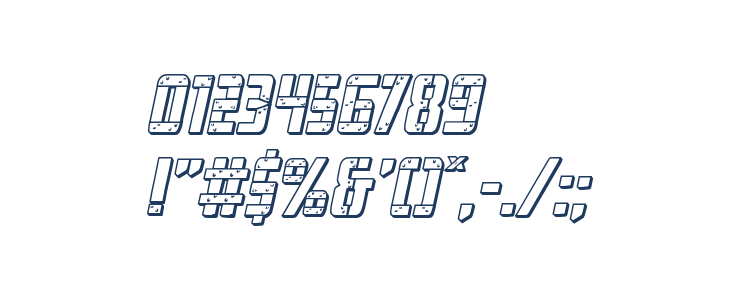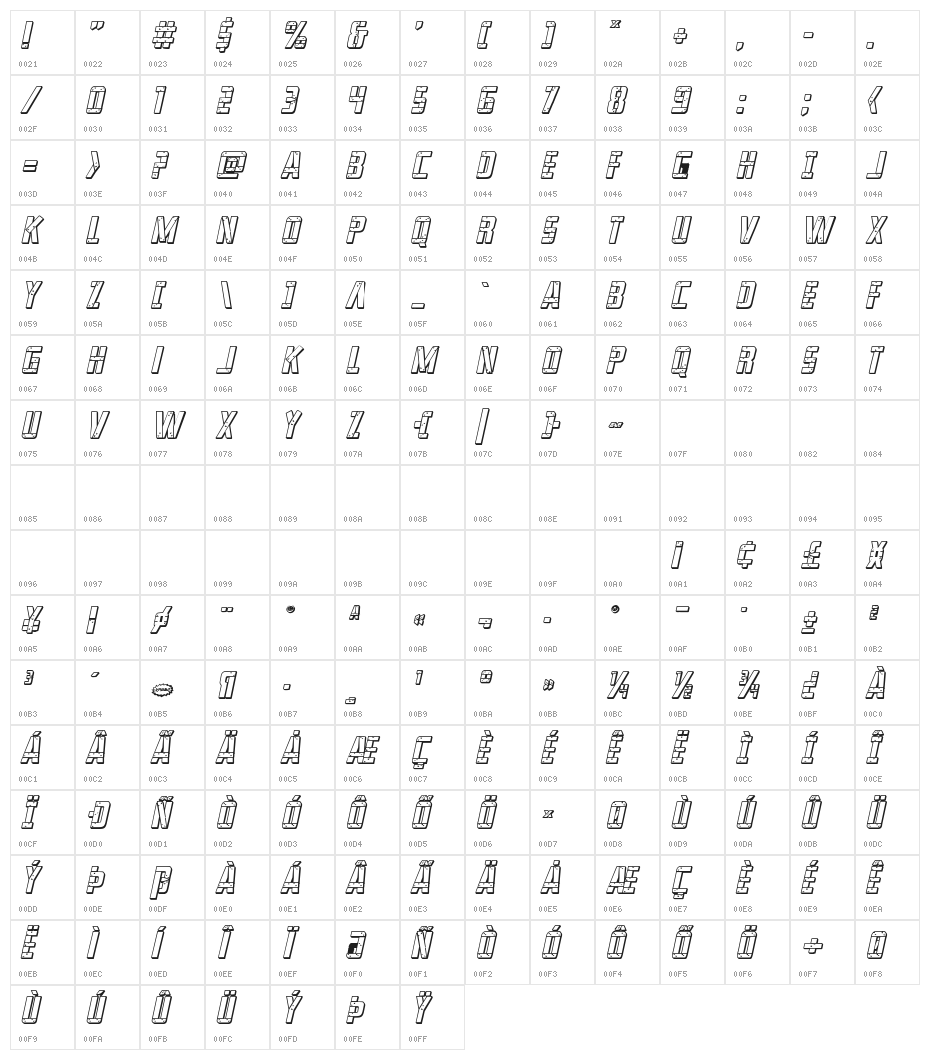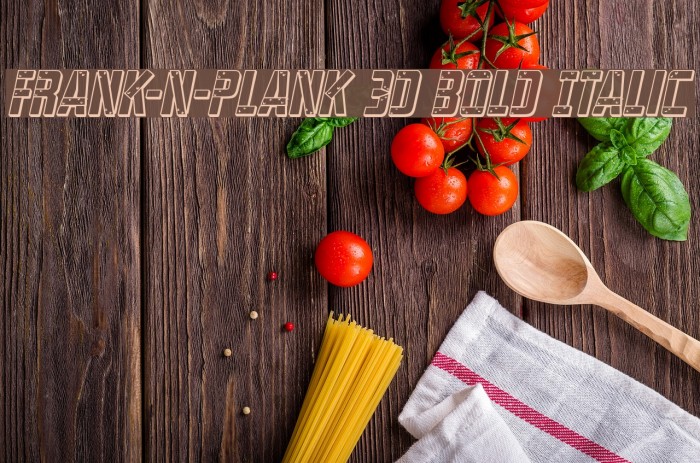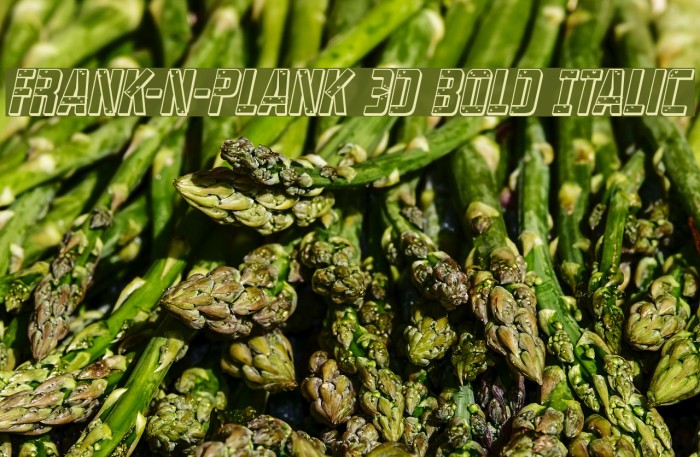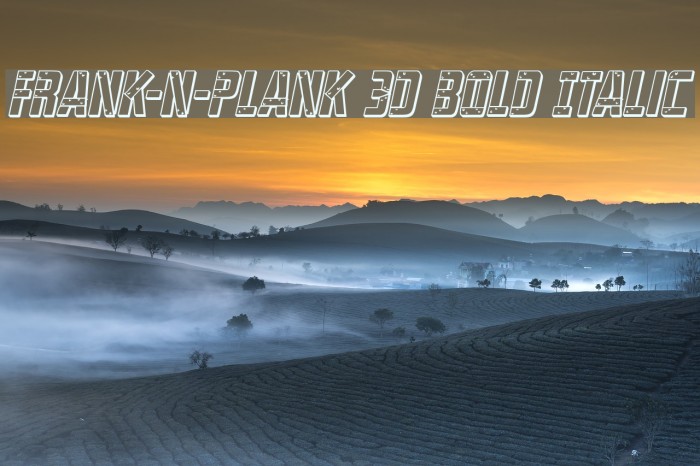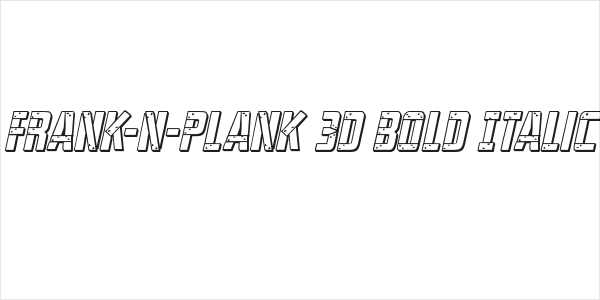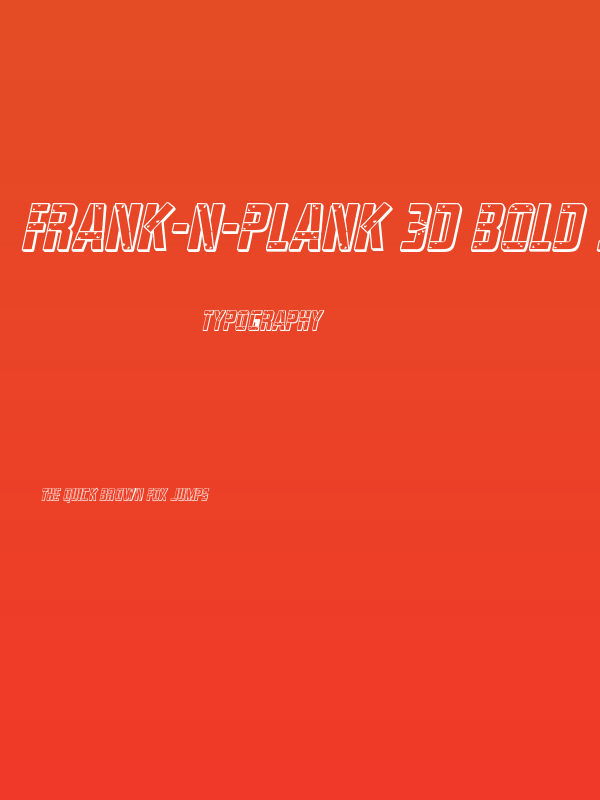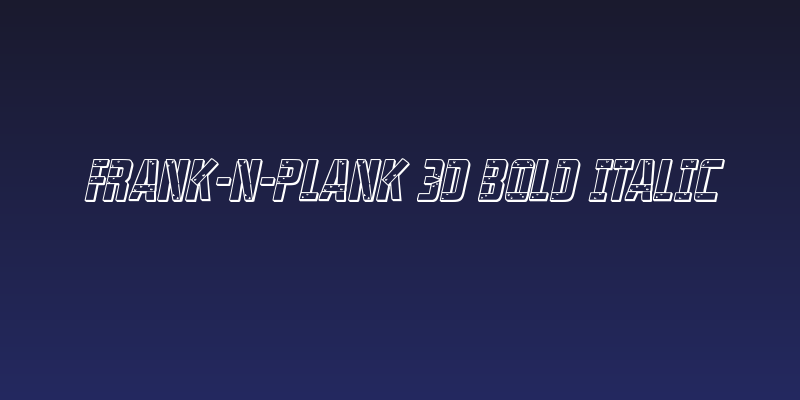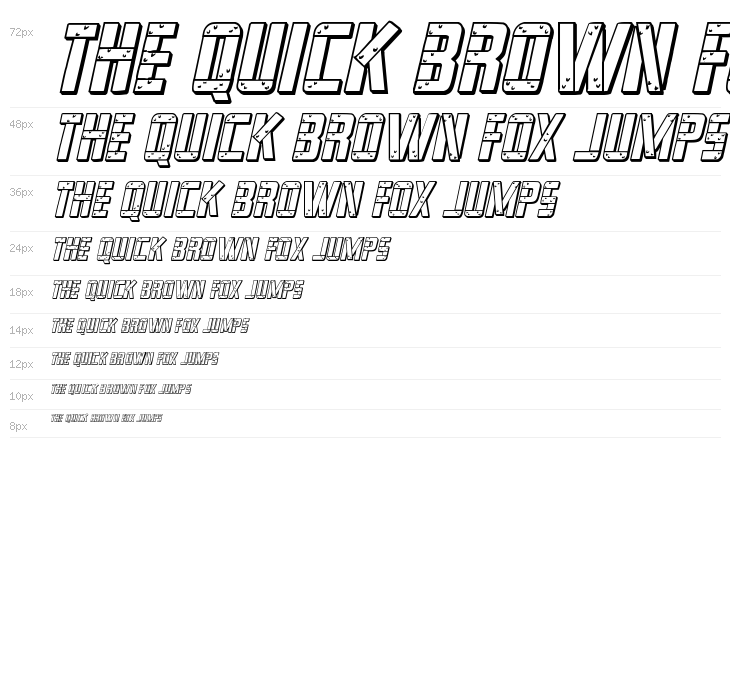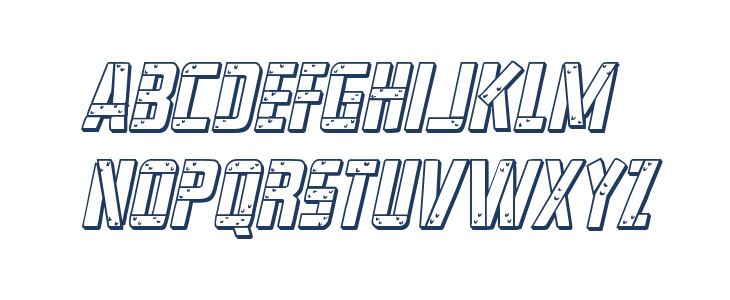
Frank-n-Plank 3D Bold Italic Font
Frank-n-Plank 3D Bold Italic Description
This font features a bold, three-dimensional design with a playful and decorative style. The characters are outlined with a thick black border, giving them a striking appearance. Each letter and number is designed with a unique pattern of dots and lines, adding a textured, industrial look. The italicized slant of the characters enhances the dynamic and energetic feel, making it stand out in any design. The font's boldness and 3D effect make it ideal for attention-grabbing headlines or creative projects that require a distinctive and fun aesthetic.